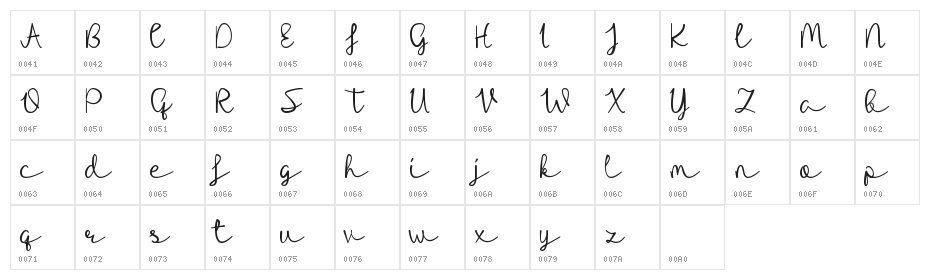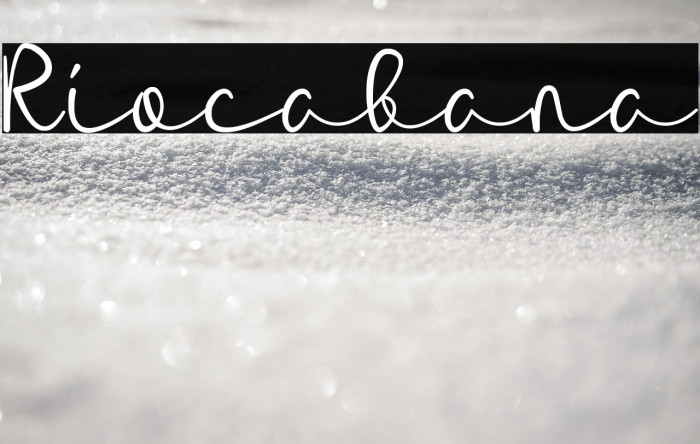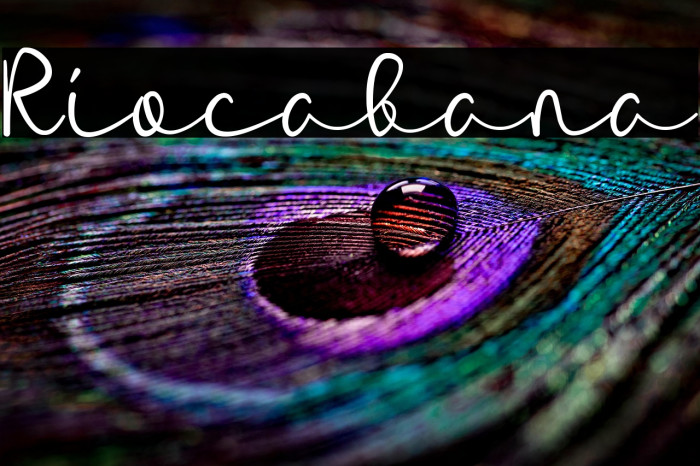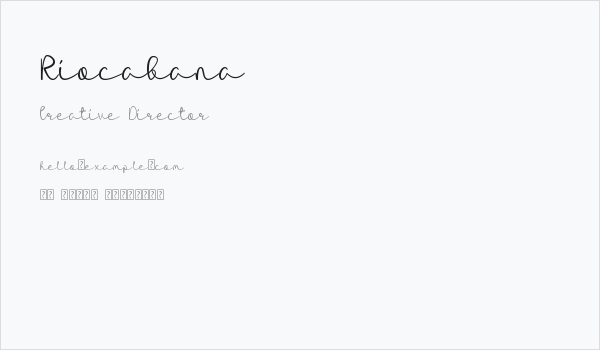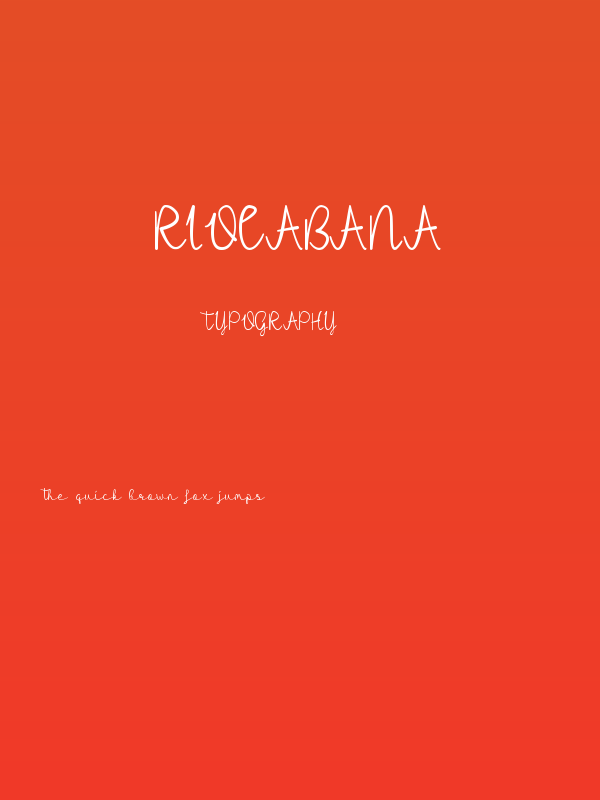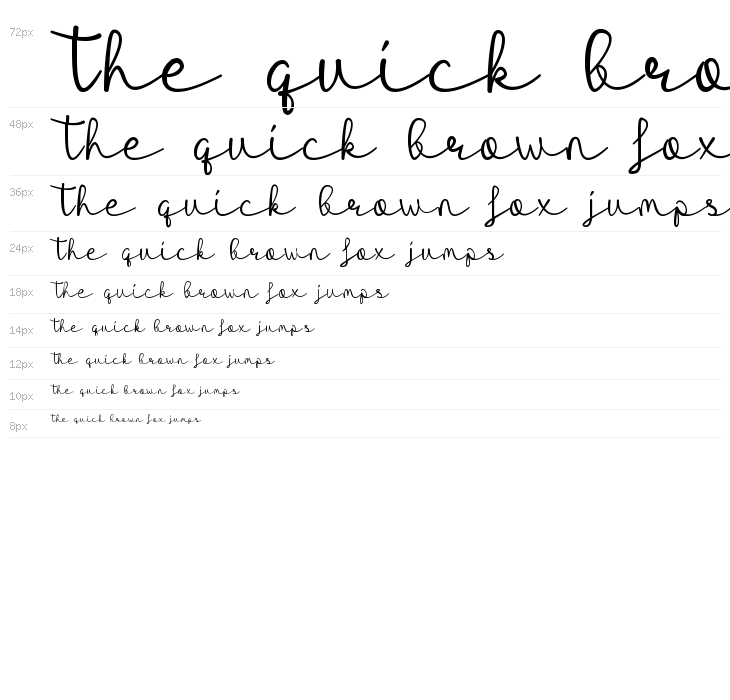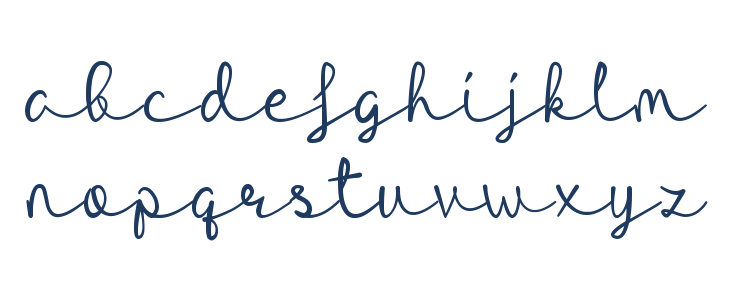
Riocabana Font
Riocabana Description
This font features a playful and flowing script style, characterized by its smooth, cursive strokes and elegant loops. The uppercase letters are bold and expressive, with a slight slant that adds a dynamic feel. The lowercase letters maintain a consistent flow, enhancing readability while retaining a whimsical charm. The numbers and special characters are crafted with the same attention to detail, ensuring a cohesive look across all glyphs. This font's design is both modern and timeless, making it versatile for various creative applications.
| Use Case | Logos, Invitations, Social Media |
| Proposed Projects | Ideal for wedding invitations, greeting cards, branding projects, and social media graphics. |